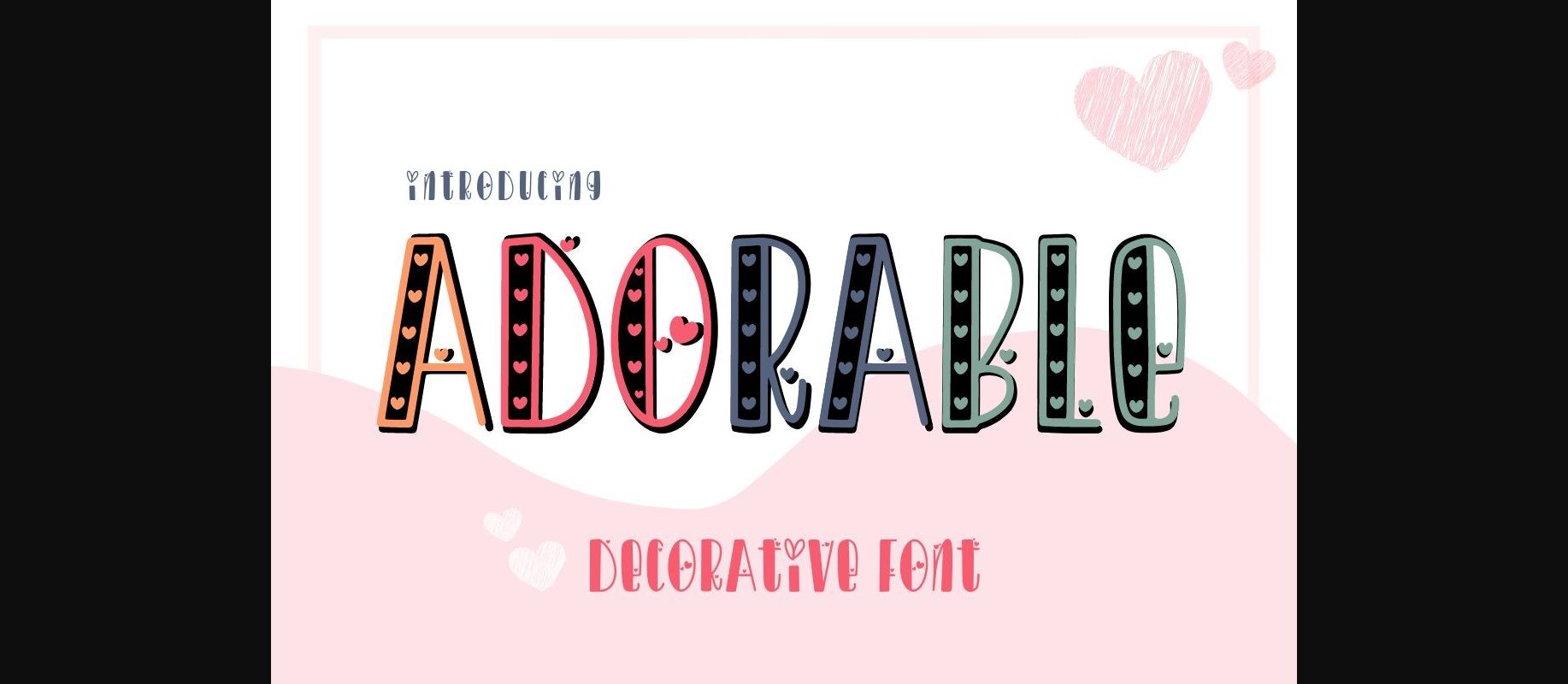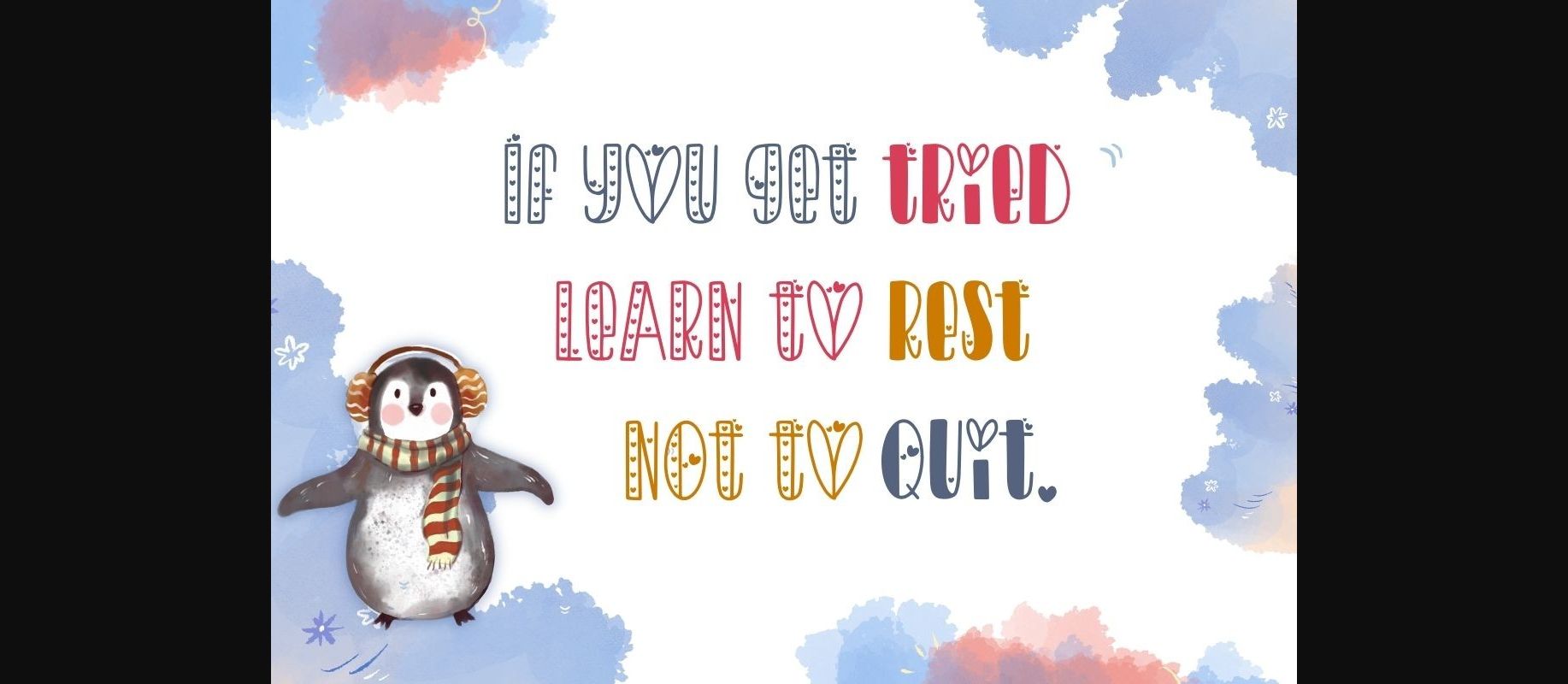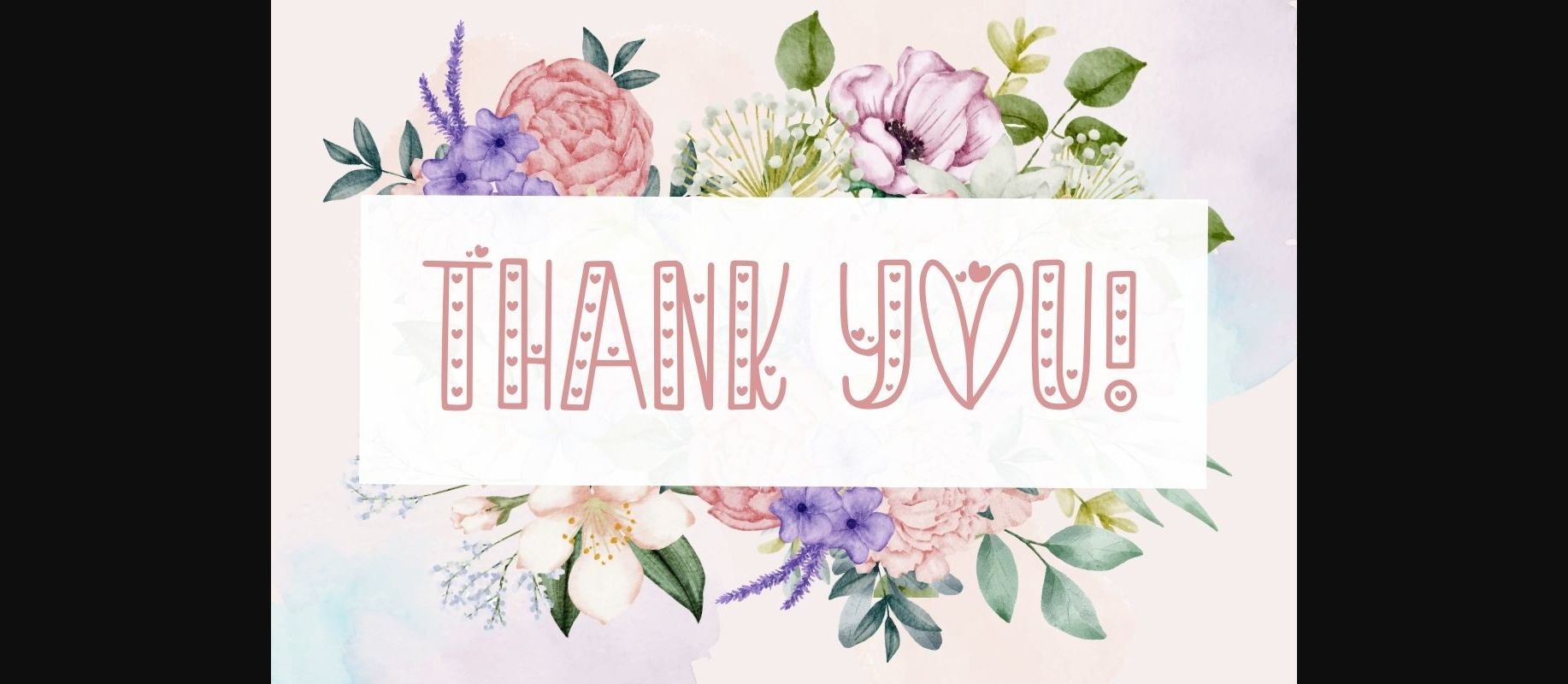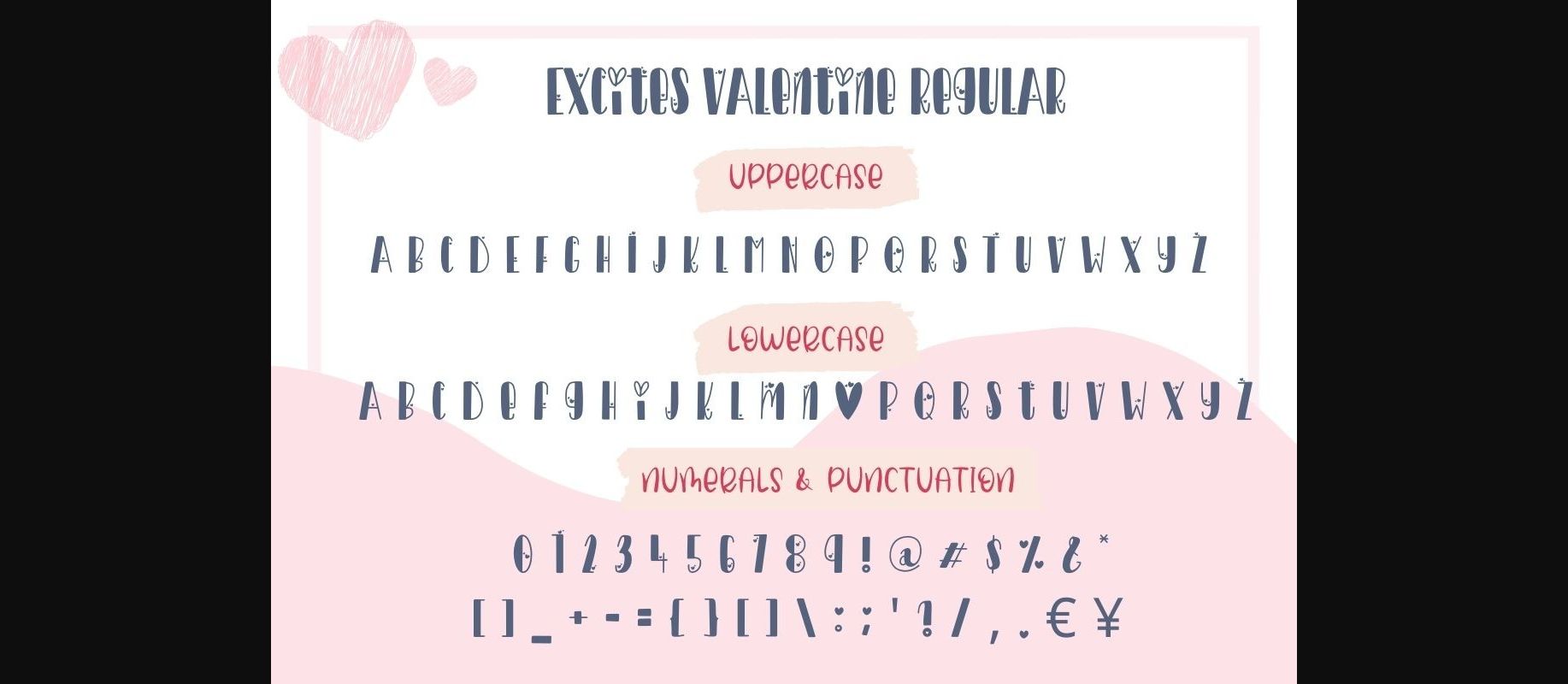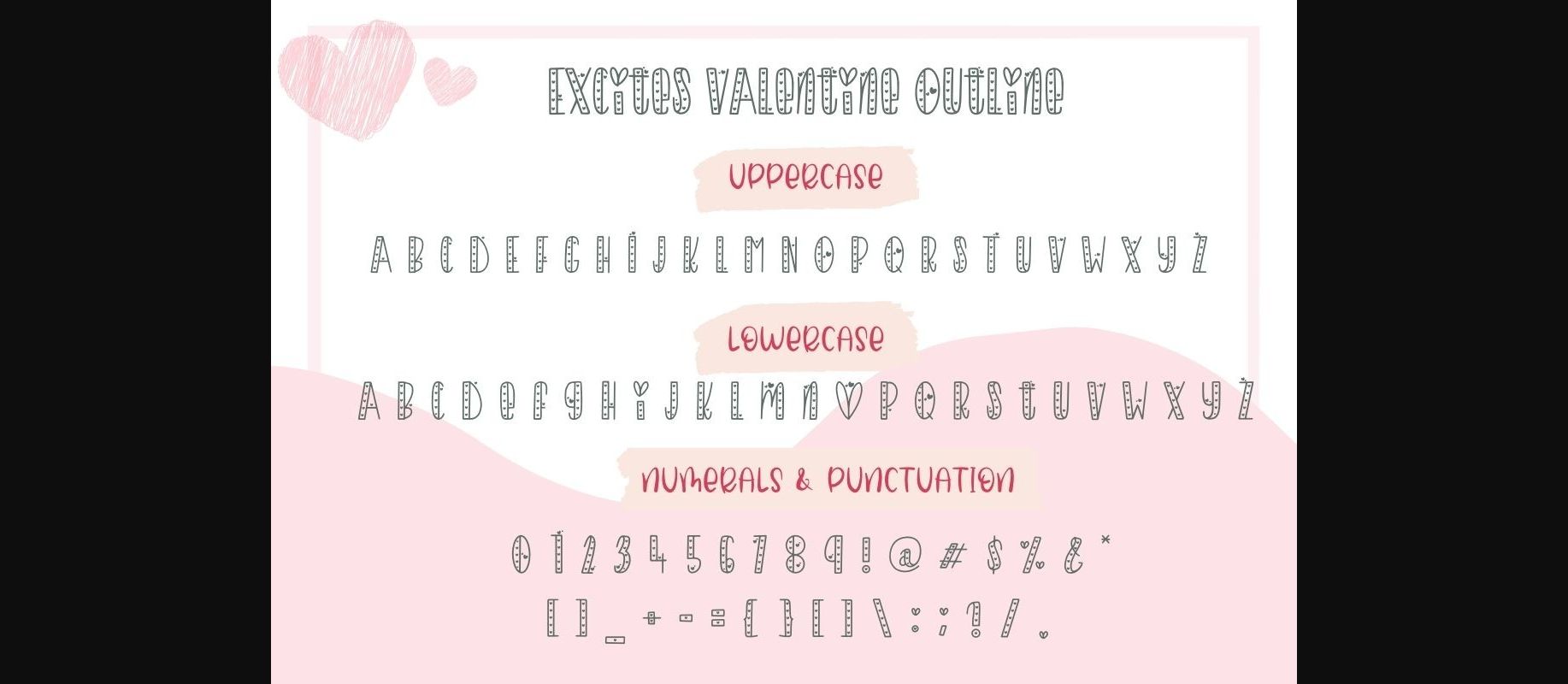
About Adorable Font
Adorable is a cute decorative font with casual charm. You can design it to match Valentine’s day theme. Perfect for creating a wide variety of new designs to match products such as banners, content, mugs, cards, shirts, stationery, social media posts, and more!